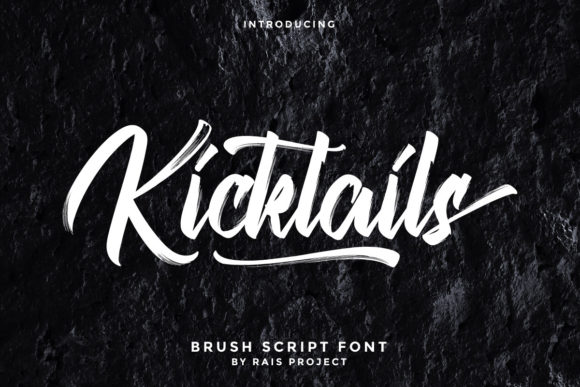
Introducing Kicktails Font - The Ultimate Handwritten Font for Powerpoint Titles!
In a world of ordinary fonts, Kicktails emerges as a breath of fresh air, an emblem of creativity and innovation. This exceptional handwritten font, crafted with meticulous care by RaisProject, takes your PowerPoint presentations to unprecedented heights.
Kicktails Font: A Symphony of Style and Versatility
Kicktails Font is a visual masterpiece that seamlessly blends elegance and functionality. Each letter dances across the screen with grace and charm, captivating your audience from the very first glance. Its meticulously designed curves and intricate details add a touch of sophistication to any project, making it the perfect choice for those seeking to make a lasting impression.
With its remarkable versatility, Kicktails Font effortlessly adapts to a diverse range of design styles. Whether you're crafting a captivating presentation, designing an eye-catching logo, or creating stunning social media graphics, Kicktails Font rises to the occasion. Its ability to blend seamlessly with various aesthetics makes it a must-have tool for any creative professional.
Embark on a Journey of Creative Expression
Unleash your inner artist and embark on a journey of creative expression with Kicktails Font. Let your imagination soar as you craft PowerPoint titles that radiate personality and style. Capture your audience's attention with headings that dance off the screen, leaving an imprint on their minds long after the presentation is over.
Kicktails Font is more than just a font; it's an invitation to explore the boundless realms of creativity. Transform your presentations into captivating visual experiences, leaving your audience spellbound and eager for more.
With Kicktails Font, you'll discover a font that's not just a tool, but an extension of your creativity. Experience the joy of crafting presentations that resonate with your audience, leaving a lasting impression that lingers long after the final slide.